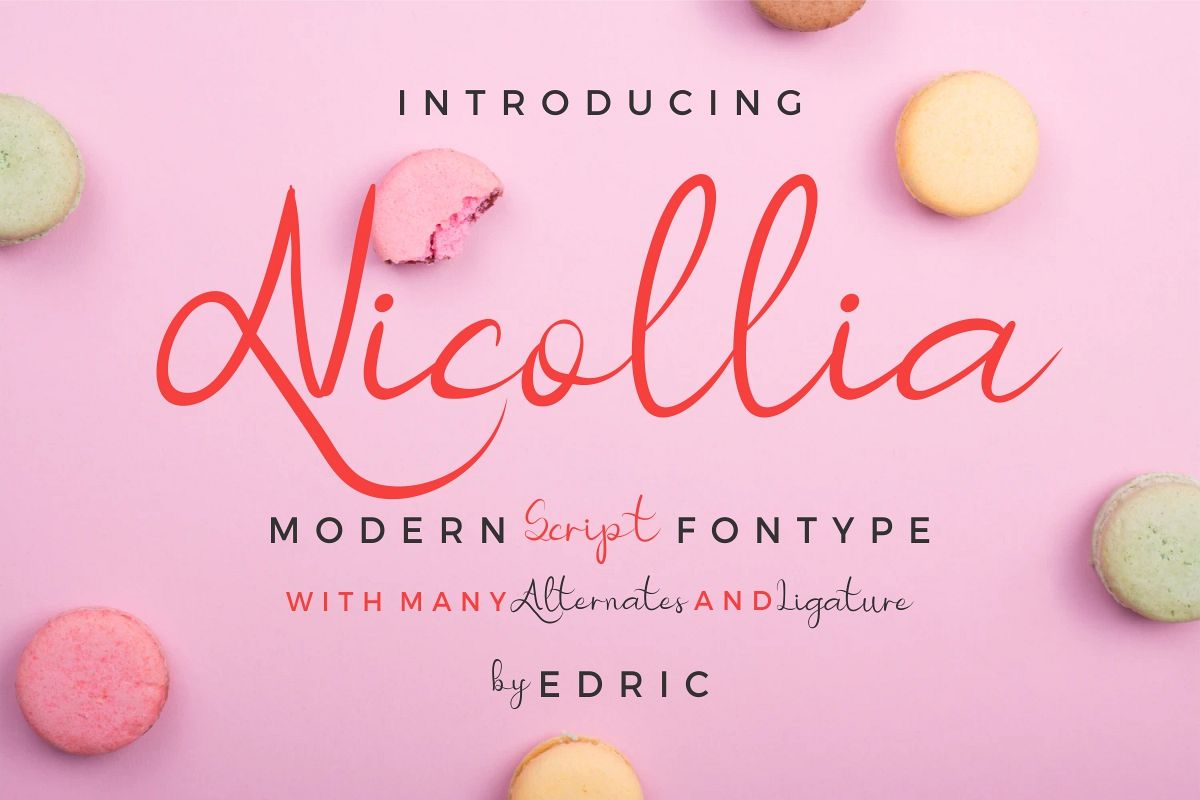
Nicollia
Hi Everyone! Introducing our newest font : Nicollia ! This is a new modern script handwriting feminine calligraphy style font. It has a fresh, elegant and stylish glyph. You will get : - OTF - TTF - WoffTwo Styles : Regular and Italic. Also Alternatives glyph on each styleThis font will Work on PC & Mac with Simple installations. Accessible in the Adobe Illustrator, Adobe Photoshop, Adobe InDesign, even work on Microsoft Word. It’s also PUA Encoded Characters – Fully accessible without additional design software.Purchase with confidence! =)